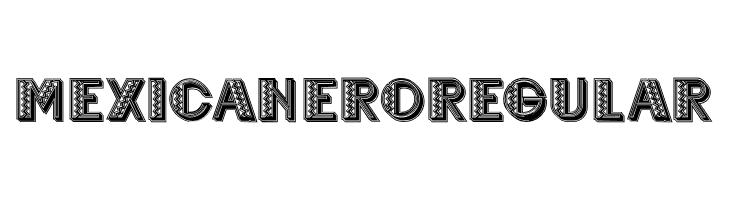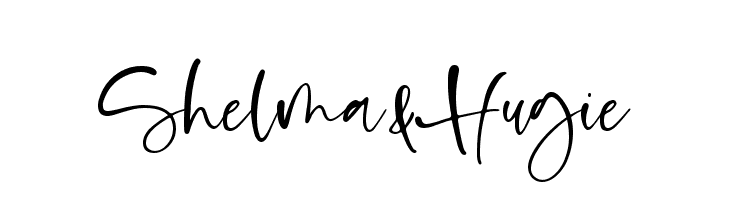
A playful, whimsical font with smooth, flowing curves and a friendly appearance.
A graceful script font with flowing, connected strokes and elegant flourishes.
A bold, textured font with a dynamic, brush-like appearance.
A modern, Braille-inspired font with a playful and innovative design.
A graceful, cursive script font with elegant loops and swashes.
A bold, geometric font with angular shapes and a strong, industrial aesthetic.
A dynamic script font with elegant, flowing cursive letterforms.
A dynamic handwritten font with fluid, expressive strokes.
A bold, cursive script font with elegant, flowing characters.
A graceful and flowing handwritten script font with elegant curves.
设计师偏爱 Yellow Monkey, alysa scrip, MangoScribble-Regular, Brailler V2 Light Regular and Washington Signature,因为其造型干净、适用范围广—— 从品牌识别到落地页、海报都能胜任。